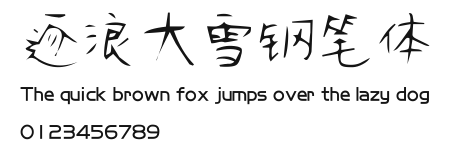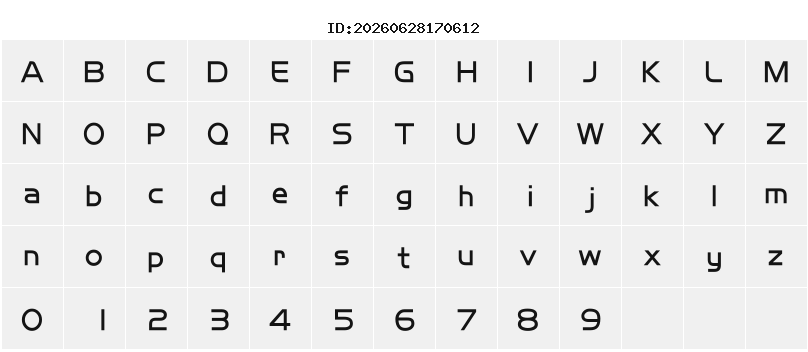
• Font Name: 逐浪大雪钢笔体
• Designer: hx008Com
• Manufacturer: Shanghai ZoomlaCMS co.,LTD
About 逐浪大雪钢笔体.otf
逐浪大雪钢笔体.otf is a modern, elegant sans-serif font designed for ultimate readability and visual harmony. Perfect for branding, headlines, web design, and print materials.